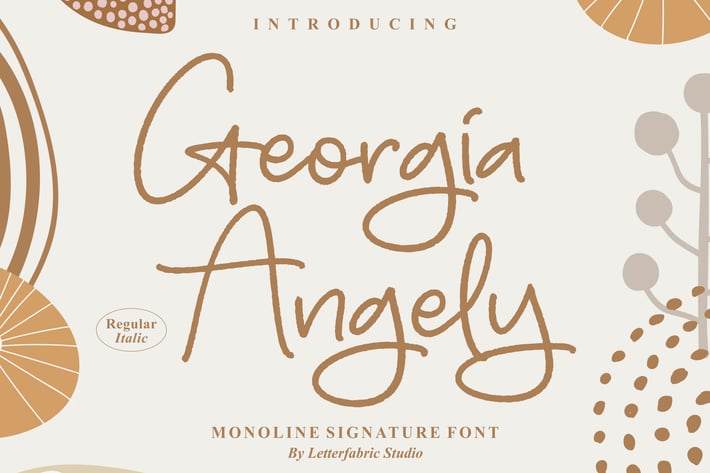
Georgia Angely Monoline Signature Font
Georgia Angely is a playful monoline signature script with rounded curves and a warm, friendly handwritten feel. Its smooth, relaxed strokes give your designs a charming personal touch—perfect for lifestyle brands, joyful invitations, and social media content that leans into soft, approachable aesthetics.
Monoline signature script with rounded, flowing lines
Friendly handwritten aesthetic with clean, modern styling
Simple and readable for logos, headers, and short phrases
Ideal for both digital outputs and printed stationery
Personal branding & logo signatures
Lifestyle, wellness, and boutique branding
Thank-you cards & playful invitations
Social media posts & quote graphics
Product labels, packaging, and handmade goods
Journals, planners, and cozy editorial layouts
Playful monoline charm for soft, joyful handwritten design.